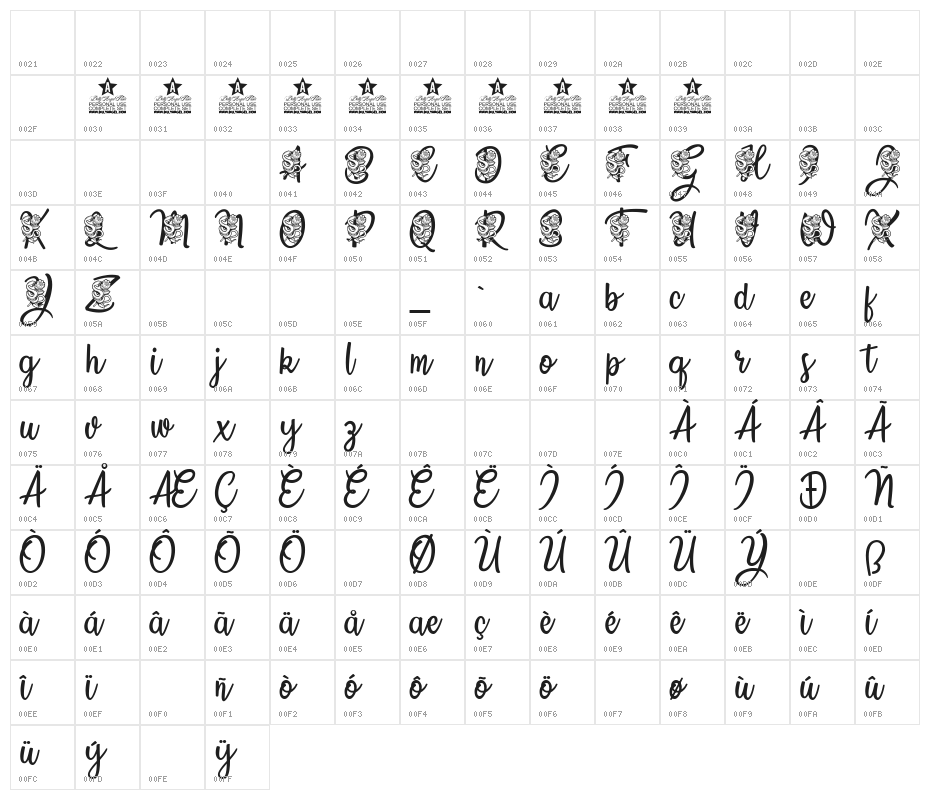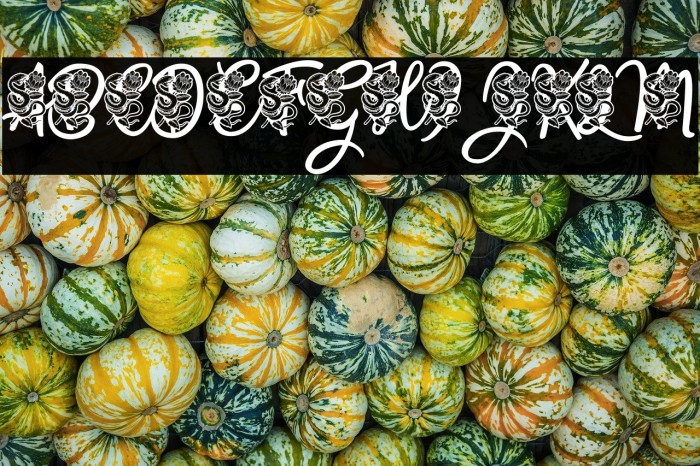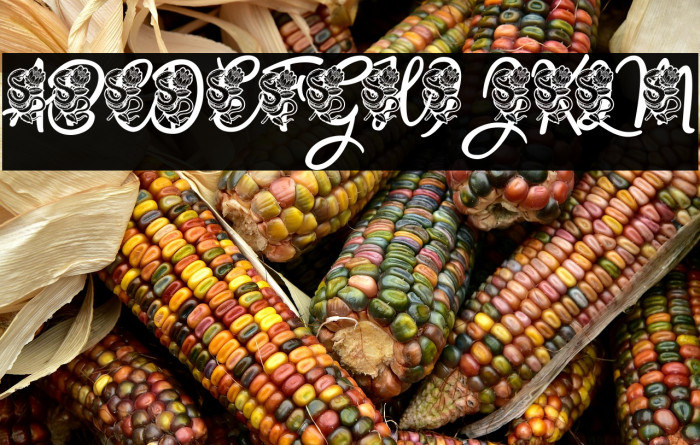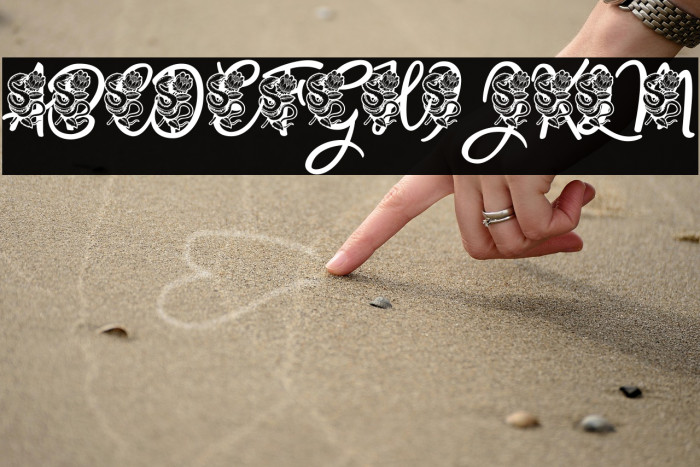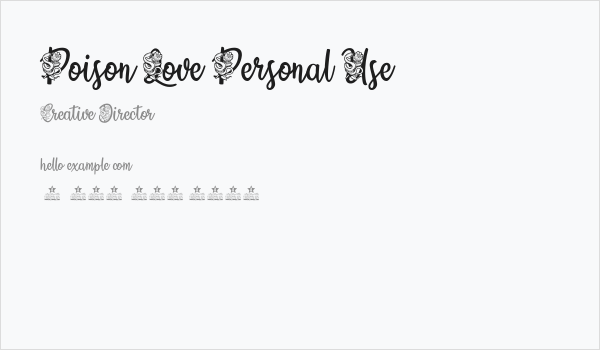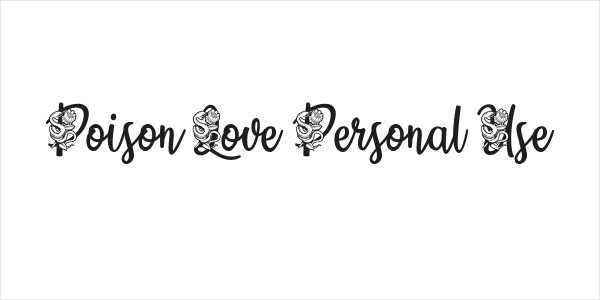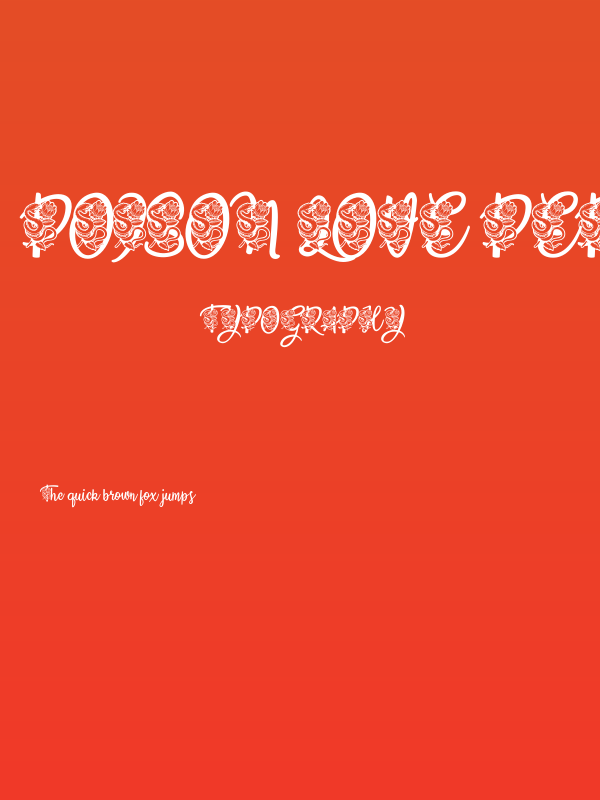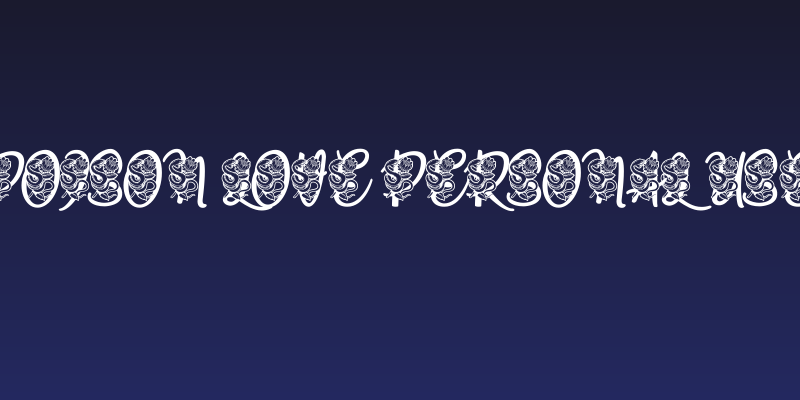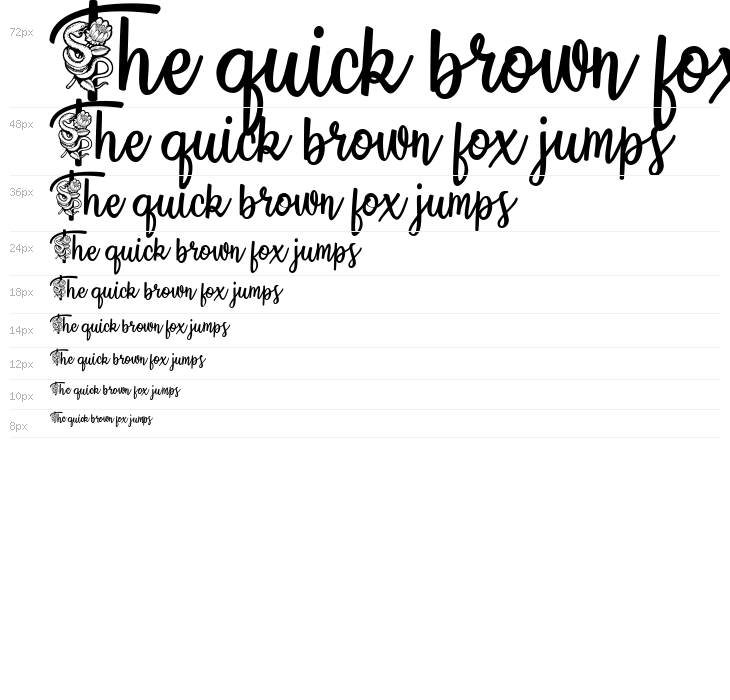
Poison Love Personal Use Font
Poison Love Personal Use Description
This font features an intricate and decorative style, combining elegant script with artistic embellishments. The uppercase letters are adorned with floral motifs, giving them a unique and ornate appearance. The lowercase letters maintain a smooth, cursive flow, enhancing readability while retaining a stylish flair. The numbers and special characters are consistent with the overall design, ensuring a cohesive look. This font is ideal for projects that require a touch of sophistication and artistic expression.